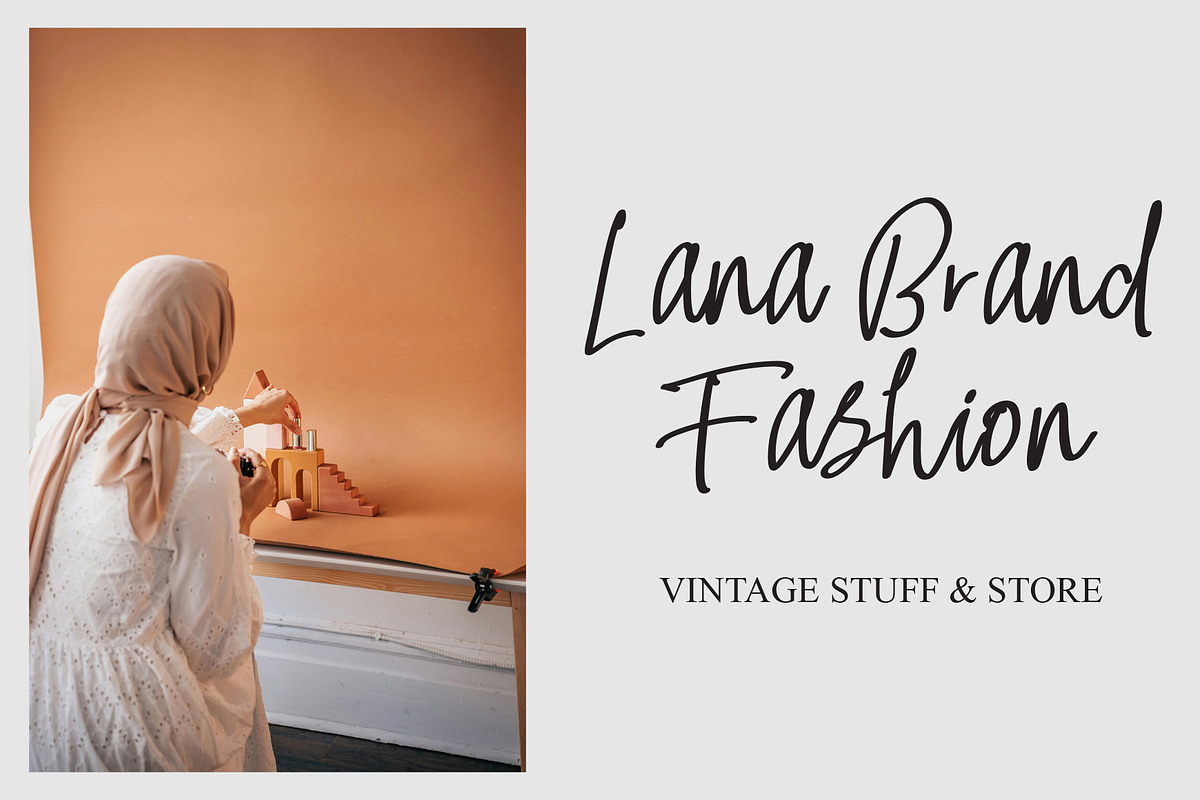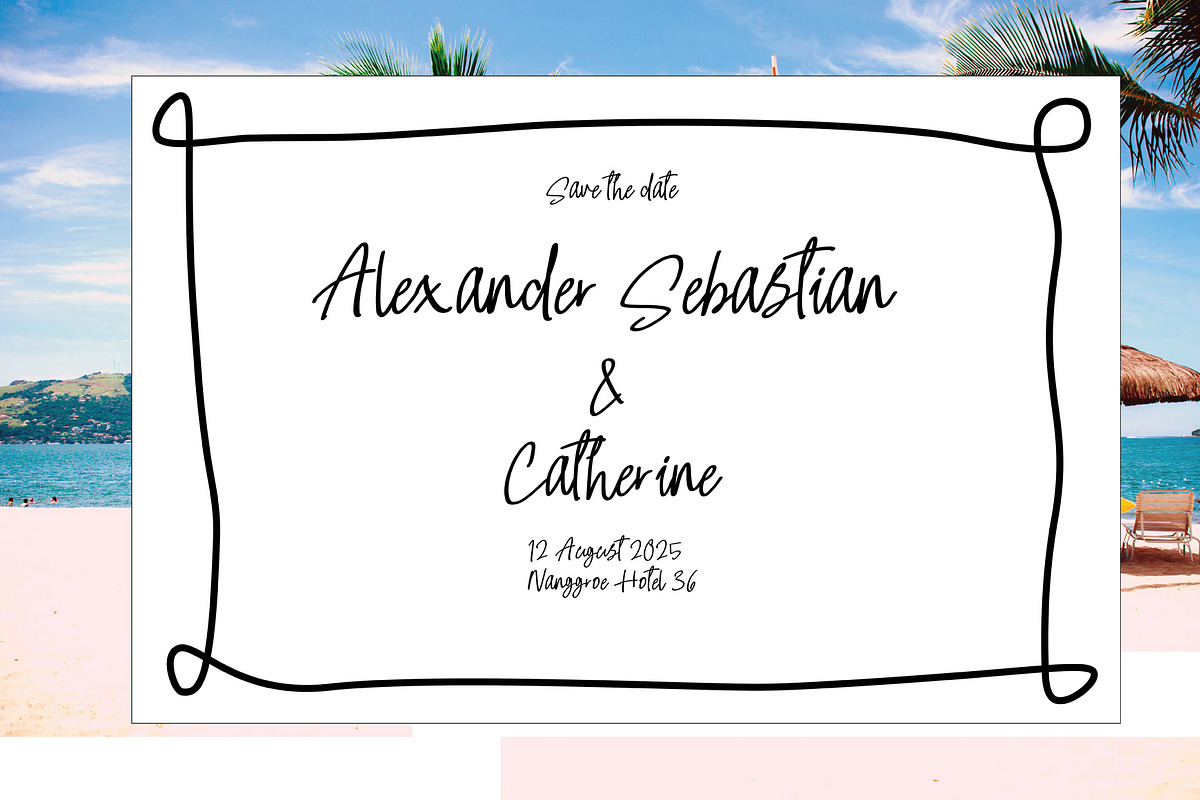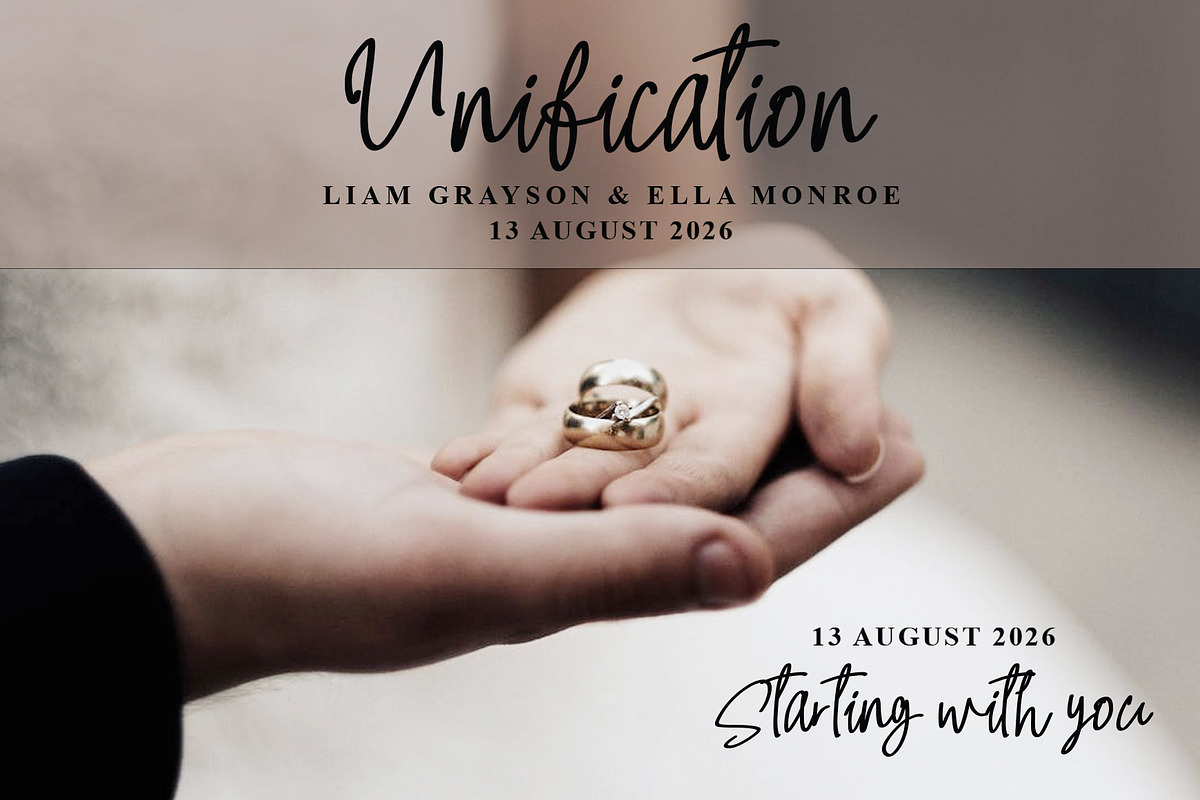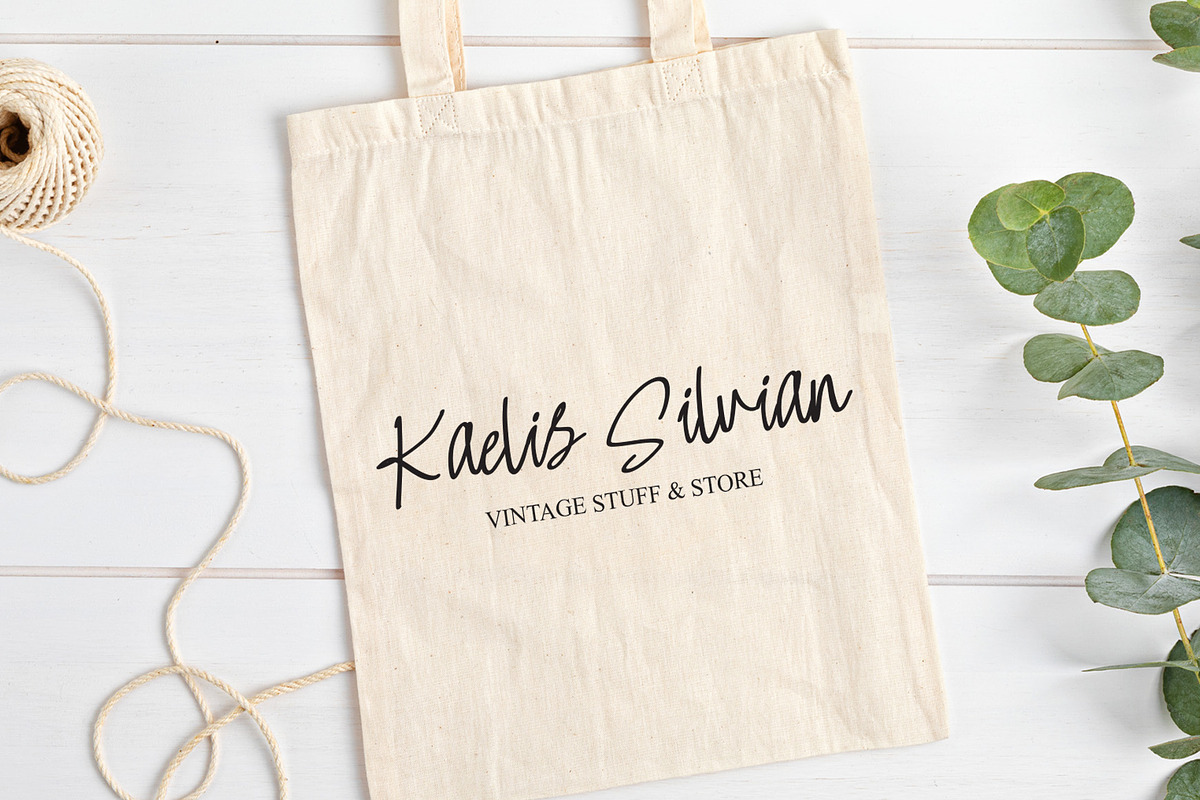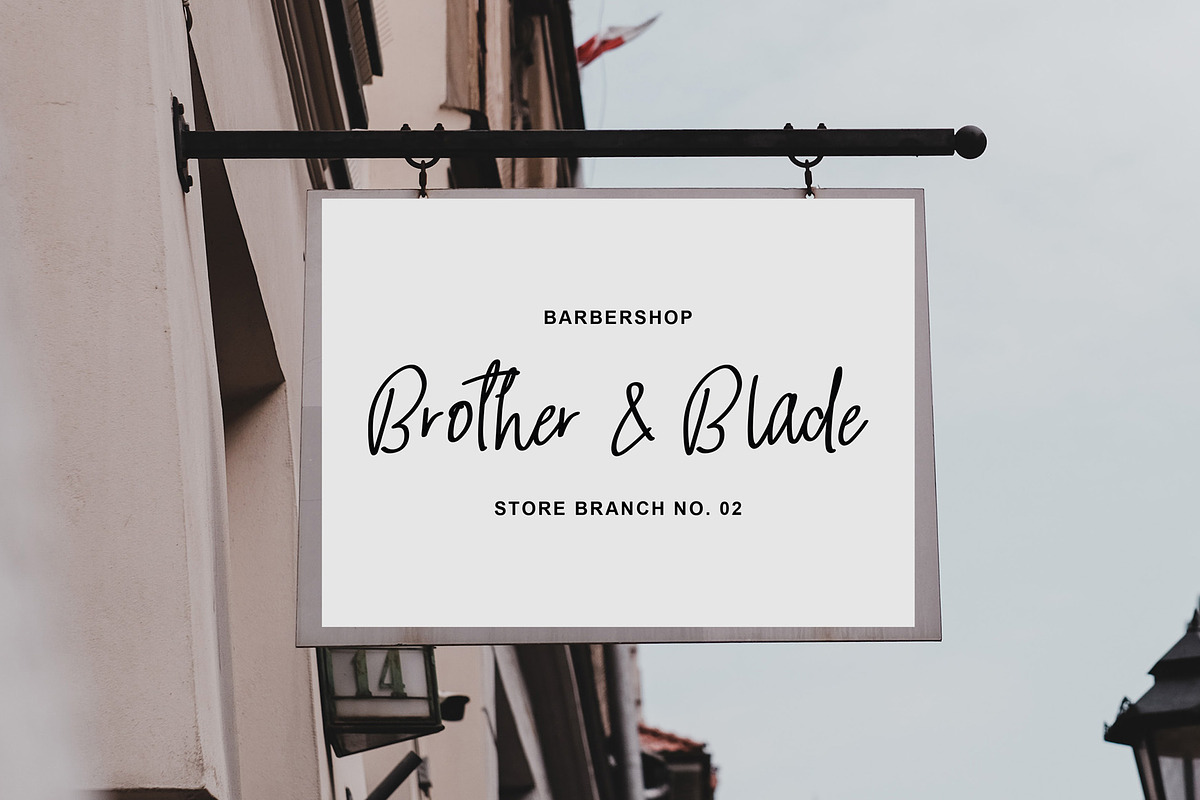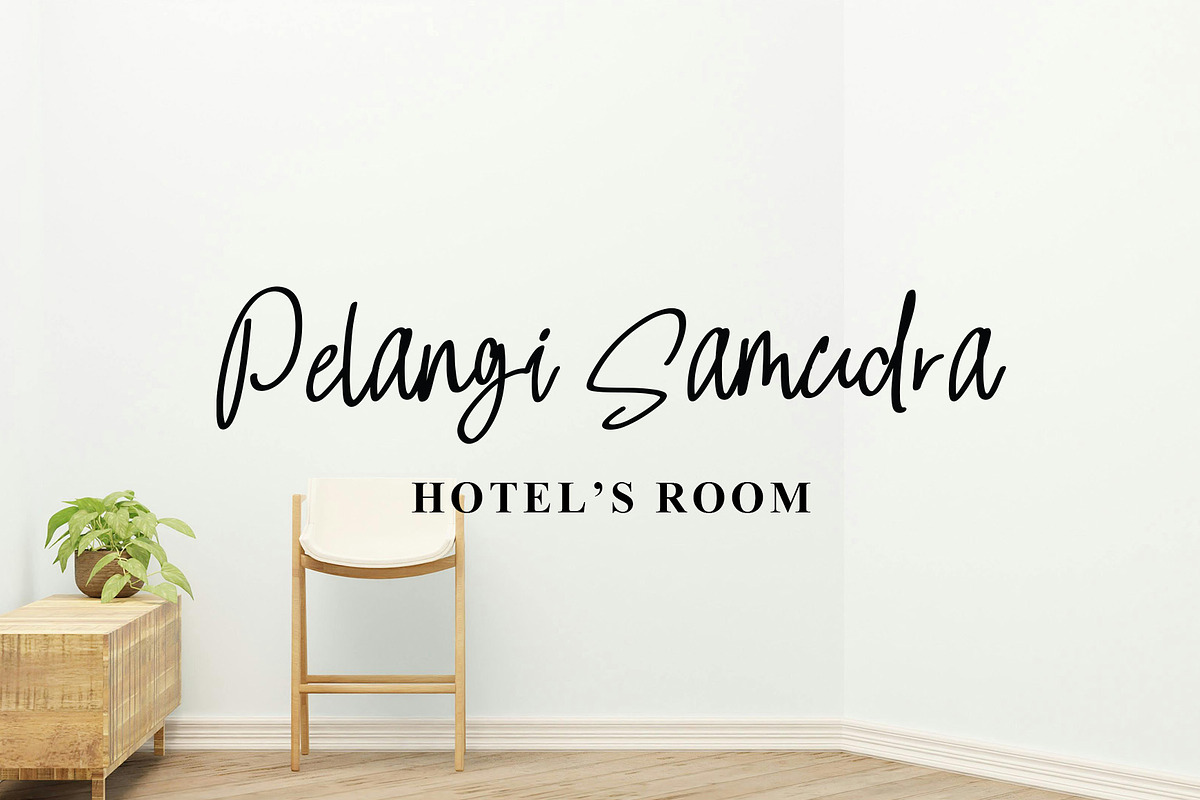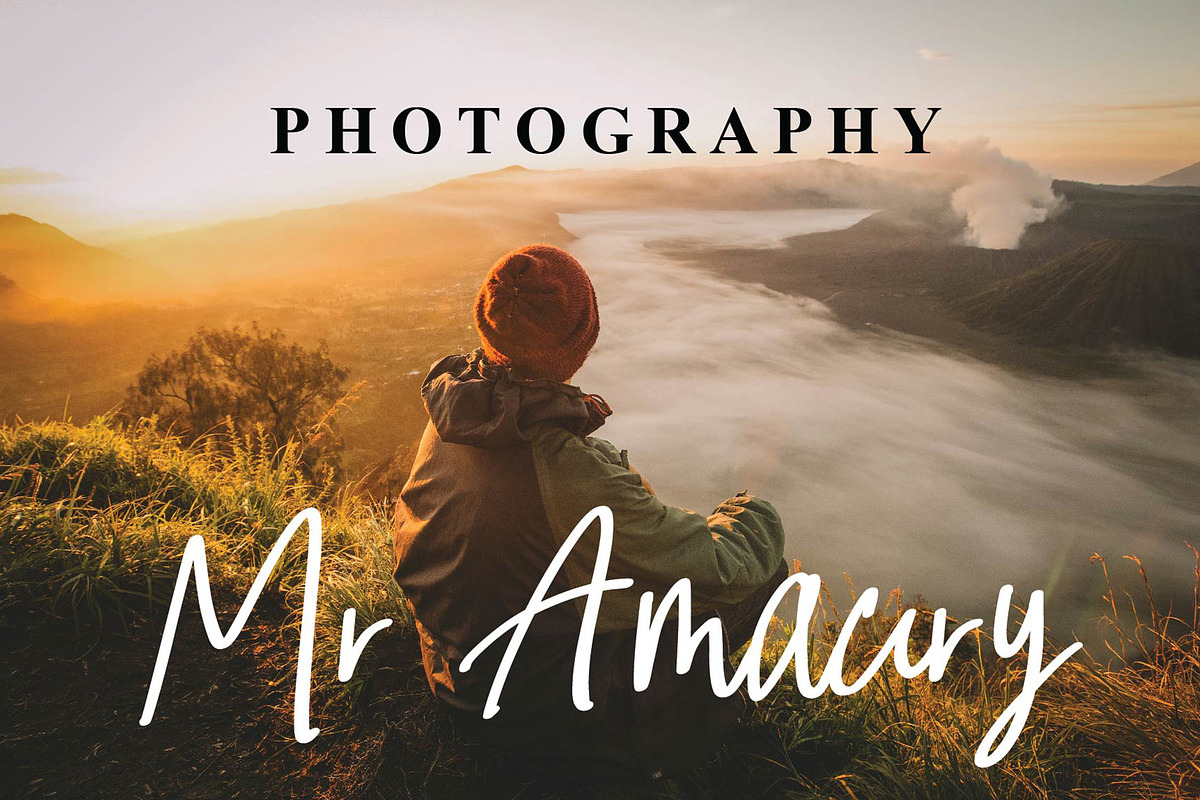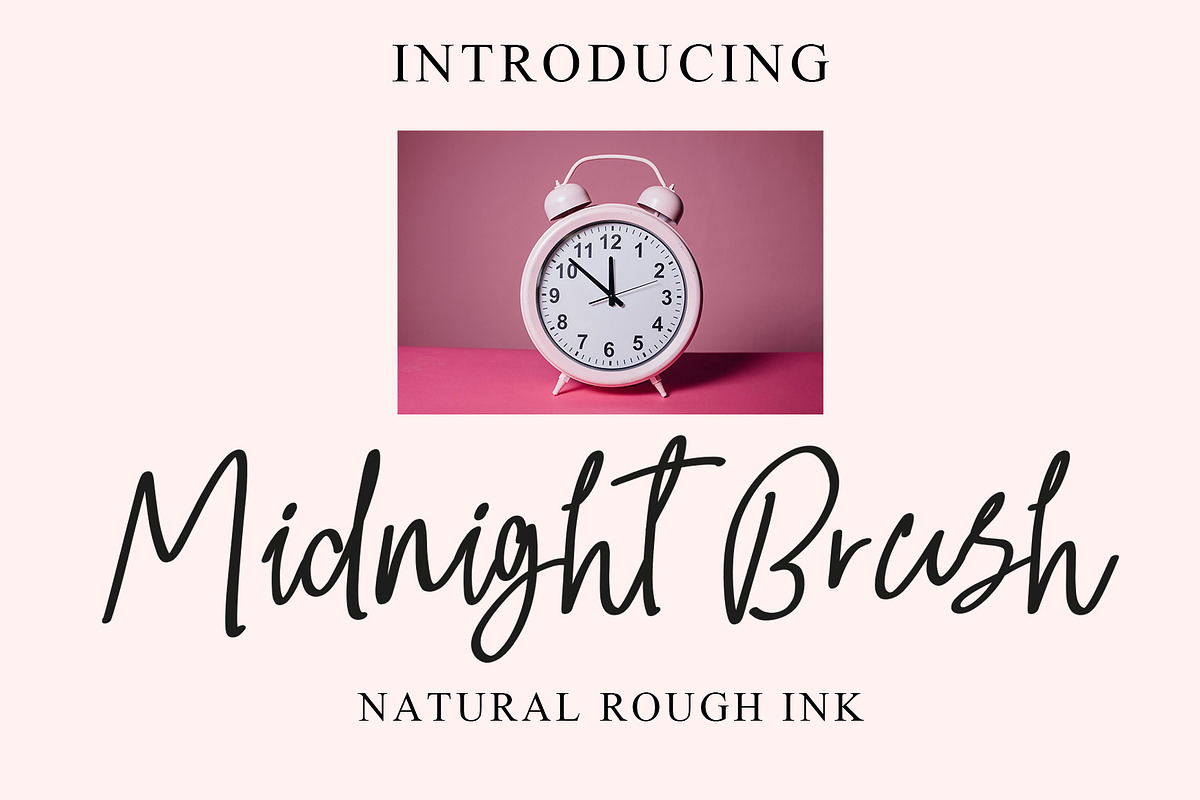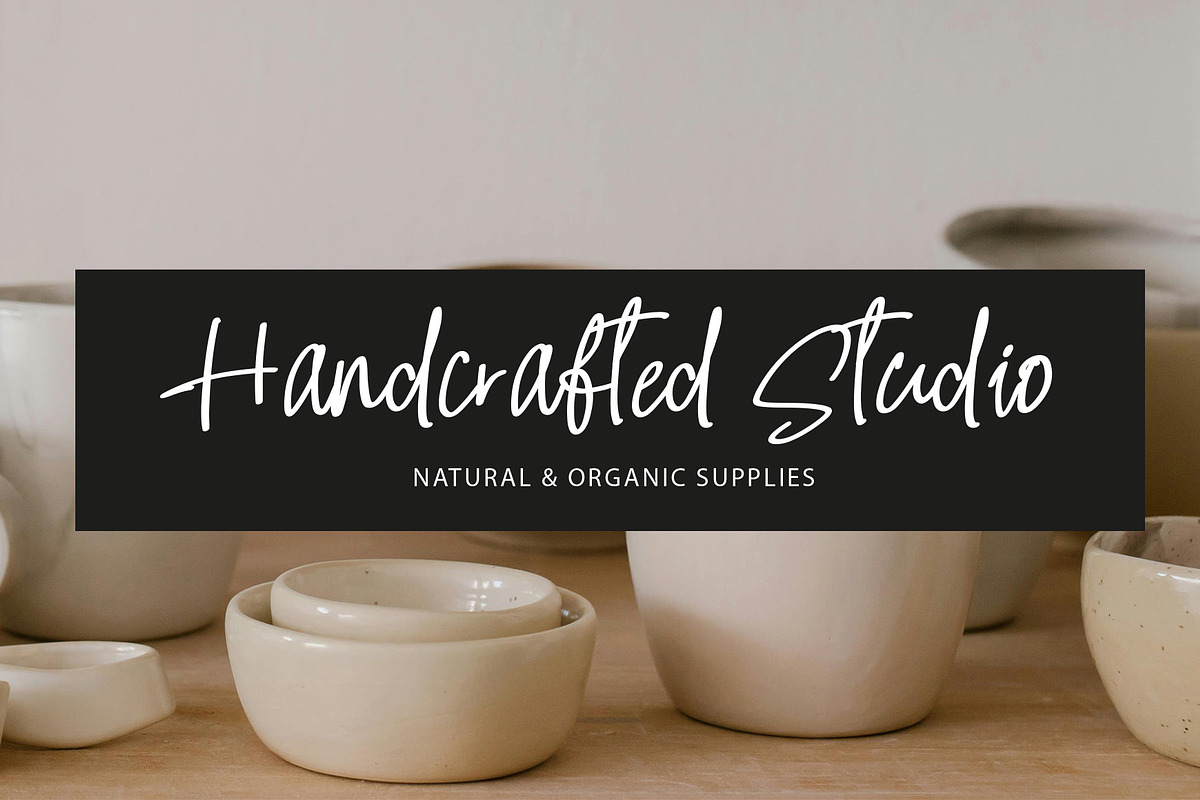
Midnight | Modern Signature Font
Midnight Handwritten Brush is designed to emulate natural handwriting, A beautifully designed handwriting that exudes natural elegance and personality. With natural strokes, delicate strokes, and subtle imperfections, this font captures the essence of authentic handwriting.
Ideal for wedding invitations, logos, branding projects, display product, invitation design, social media posts, and more, this font effortlessly blends charm and versatility. With its organic feel and stylish extras, Midnight is your go-to choice for creating designs that are as unique as they are timeless.